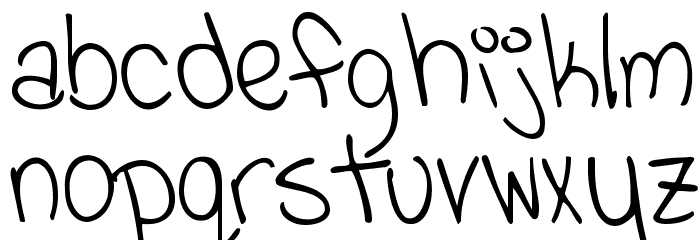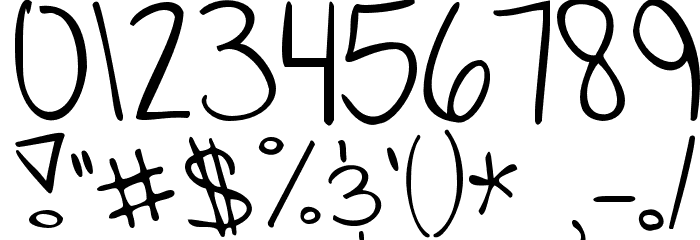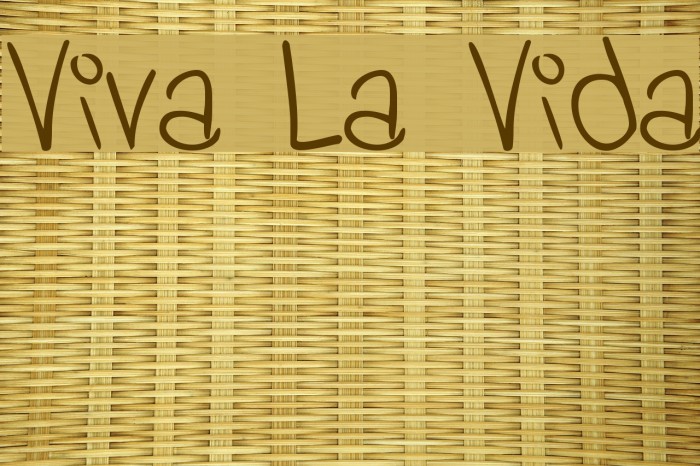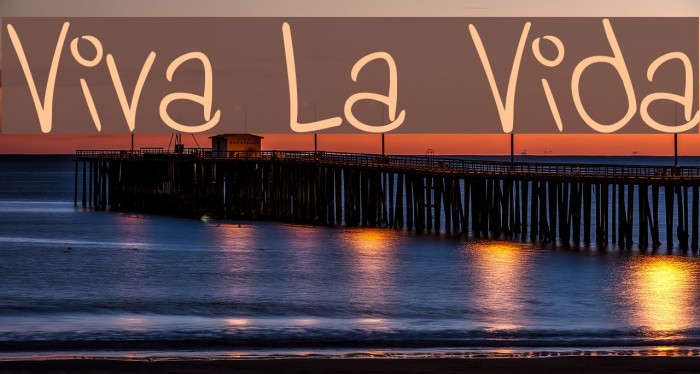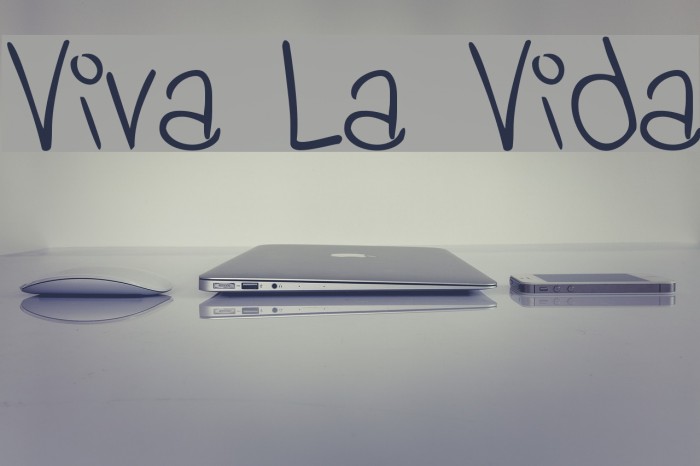
Viva La Vida Font
This playful and whimsical font features a handwritten style with a casual and friendly appearance. The letters are slightly irregular, giving it a natural and organic feel. The uppercase and lowercase characters are distinct yet harmonious, with a consistent stroke width that maintains readability. The numbers and special characters complement the alphabet with the same lively and informal design. This font is perfect for projects that require a personal touch or a fun, approachable vibe.
- Proposed Projects: Ideal for greeting cards, children's books, playful branding, and casual invitations.
- Overall Style: Casual, Playful
- Use Case: Headlines, Informal text, Creative projects